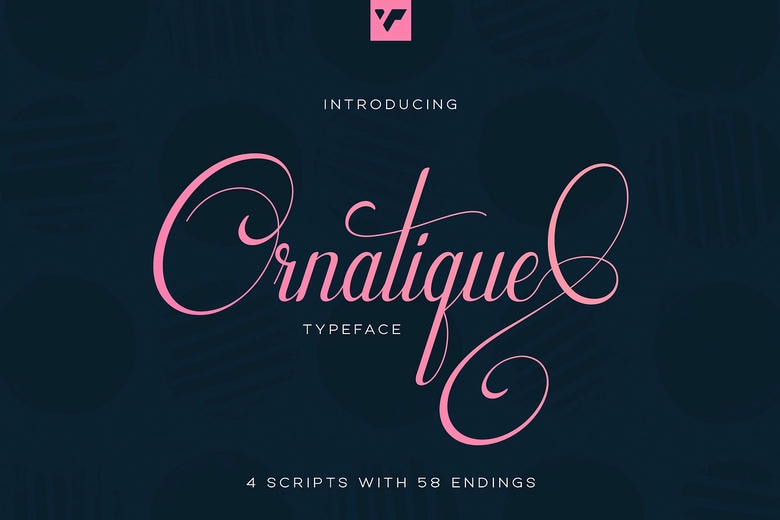
Ornatique is a beautiful and elegant calligraphy typeface is suitable for those projects that need and extra touch of chic. Ornatite is designed in strict, thin strokes and additional gentle bends that give an expression of elegant handwriting. This versatile typeface offers four scripts to choose from: the novel Traditional Regular style for a traditional look, the novel Italic style for a more sophisticated look and finally, the Alternate styles, for even more variety.
But that’s not all! Ornatique is a true messenger service as it helps communicate in mind blowing 87 languages. No matter what kind of language you are designing for whether English, Spanish, French or yet again the many other languages, this typeface is right for you. Better employ the possibilities of fully non-gated multilingual designs. That really gives Ornatique an edge is their catalogue of 58 swash endings, those are made as ligatures.
These designs are more delicate and detailed than the simple, plain designs making them even more appealing. From elegant arabesque to delicat spinning top, each swash ending makes your typography look magical, thus making it special. From wedding invitation to branding, or just we want to add touch of luxury to our work, Ornatique is the brand for you. It merges simplicity and elegance that originated from femininity to guarantee that your designs will entice and create inspiration.
Experience a new and free world of calligraphy with Ornatique and immerse yourself with the beauty of writing regardless of the language and nationality. Opened to a new level of designs and effectively cause an impression of people being attracted to your work through the use of this fine typeface.
Ornatique Calligraphy Script Font